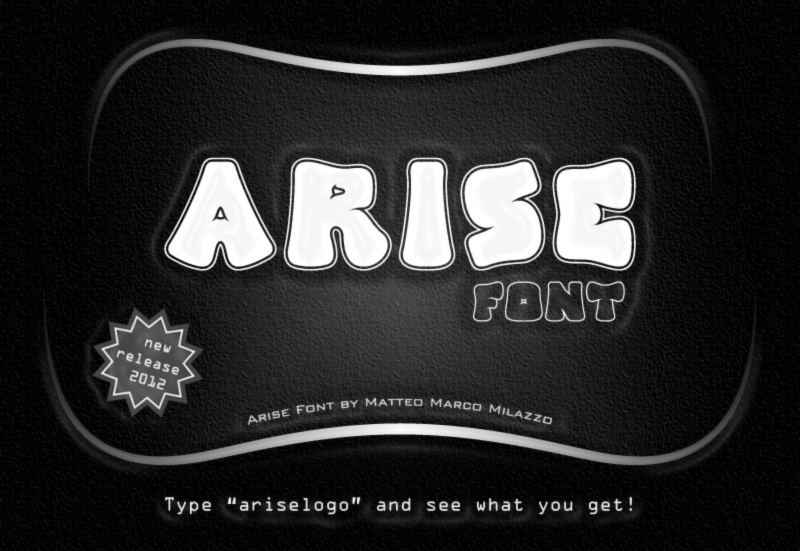
Preview and download Arise Logo Font. Created by Matteo Marco Milazzo in Script Graffiti styles with Free for personal use license.
Font name: | Arise Logo |
Author: | Matteo Marco Milazzo |
This font is free for personal use. For any commercial use contact Matteo Milazzo at matte.mila@hotmail.it. The first letter I created is the "A" and is inspired by the logo Arise, my own T-shirt brand. |